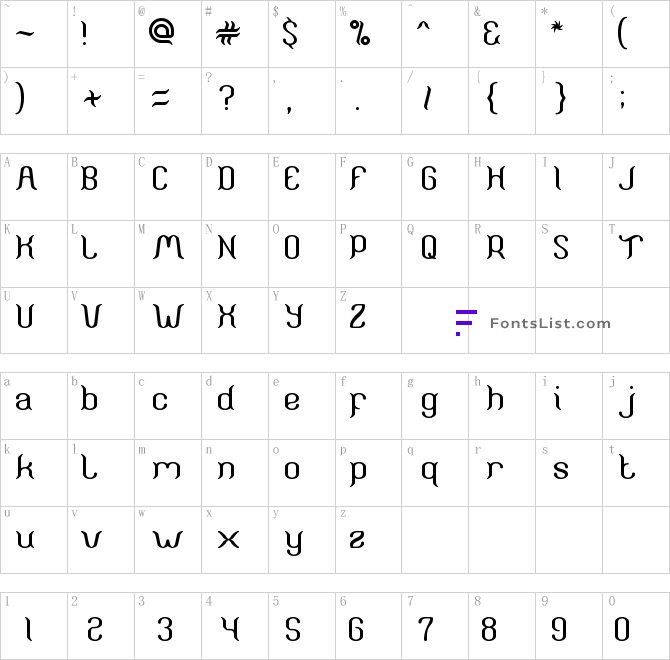
- Font Name:ARUNA AIRA JASMINE
ARUNA-AIRA-JASMINE.ttf is a very beautiful artistic font, ARUNA-AIRA-JASMINE.ttf is widely used in the design and printing of various books and pictures,ARUNA-AIRA-JASMINE.ttf has a strong visual impact,ARUNA-AIRA-JASMINE.ttf is a commonly used font in newspapers, magazines and books, and is used in posters, e-commerce Poster design, store design, logo design, font design and other fields.ARUNA-AIRA-JASMINE.